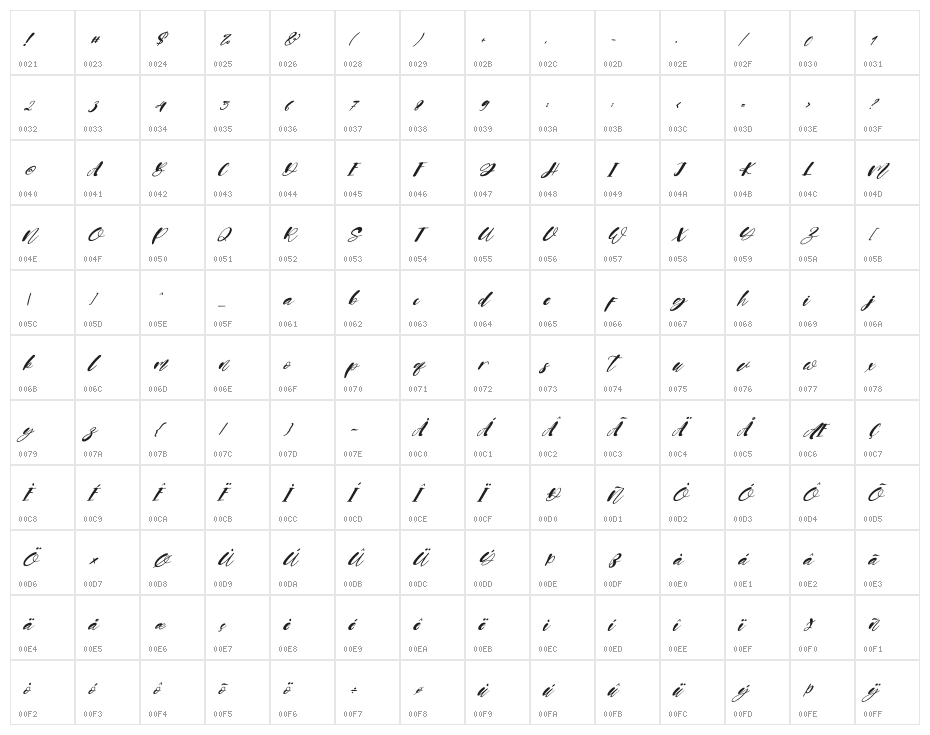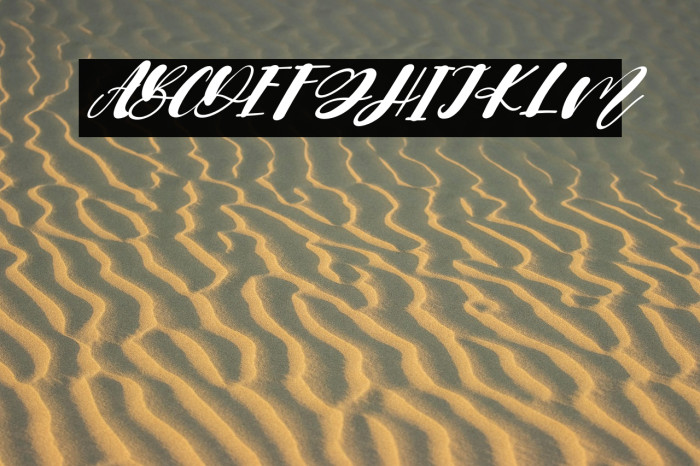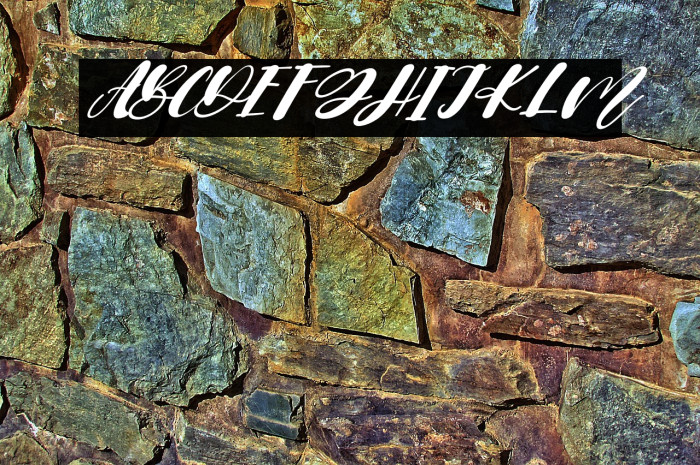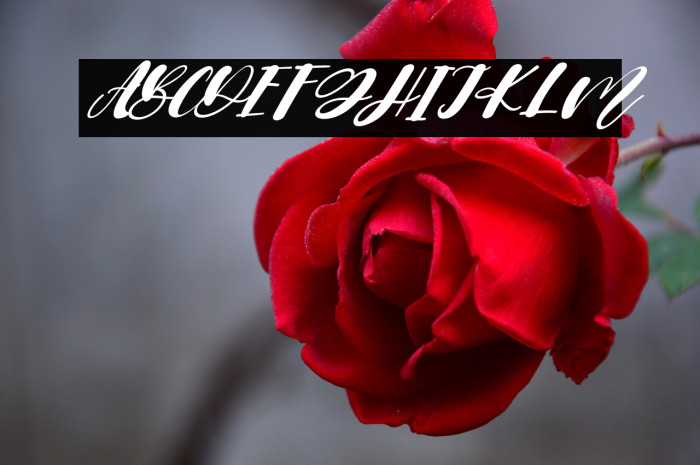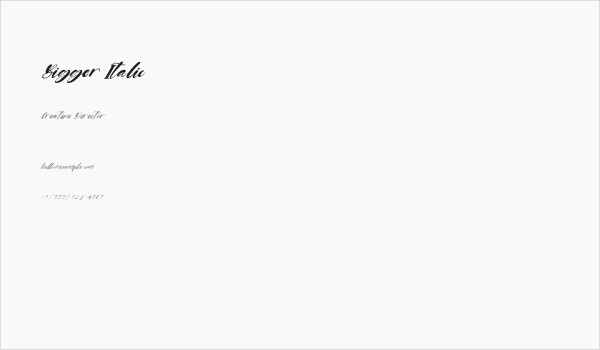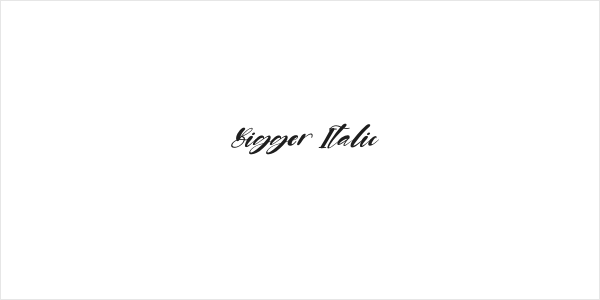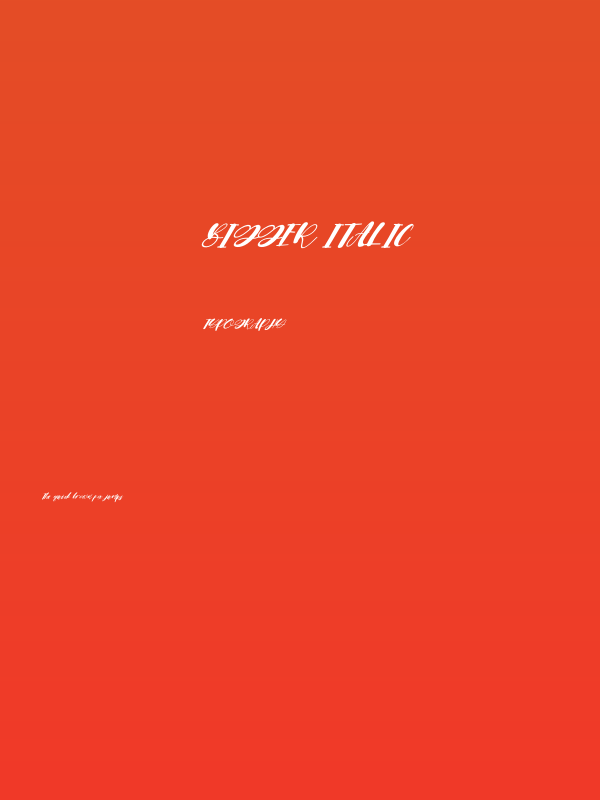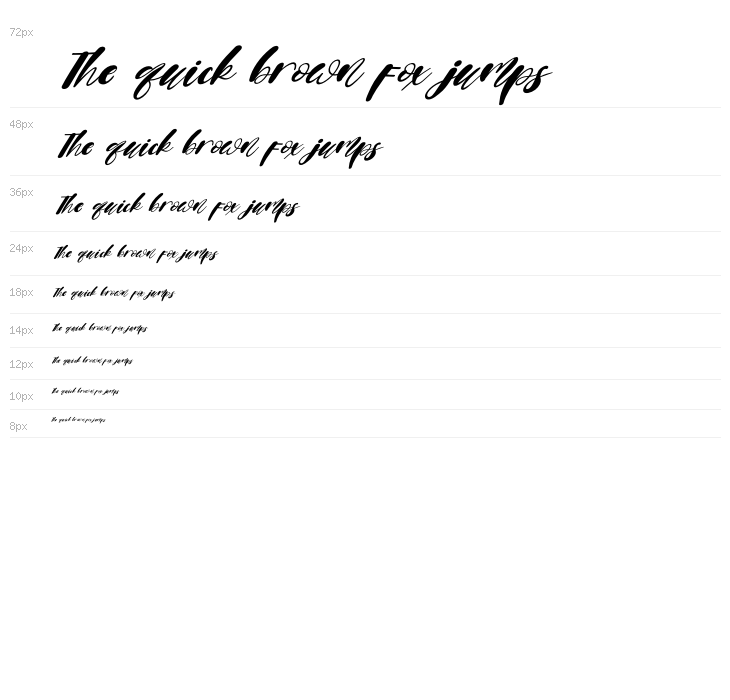
Bigger Italic Font
Bigger Italic Description
This font features an elegant, flowing script style with a pronounced italic slant, giving it a dynamic and sophisticated appearance. The characters are intricately designed with high contrast between thick and thin strokes, adding to its decorative appeal. The uppercase letters exhibit a graceful, sweeping motion, while the lowercase letters maintain a consistent fluidity. The numerals and special characters are crafted to match the overall aesthetic, ensuring a cohesive look. This font is ideal for projects that require a touch of elegance and flair.
| Use Case | Logos, Invitations, Decorative Headlines |
| Proposed Projects | Ideal for wedding invitations, elegant branding, luxury product packaging, and decorative headlines. |